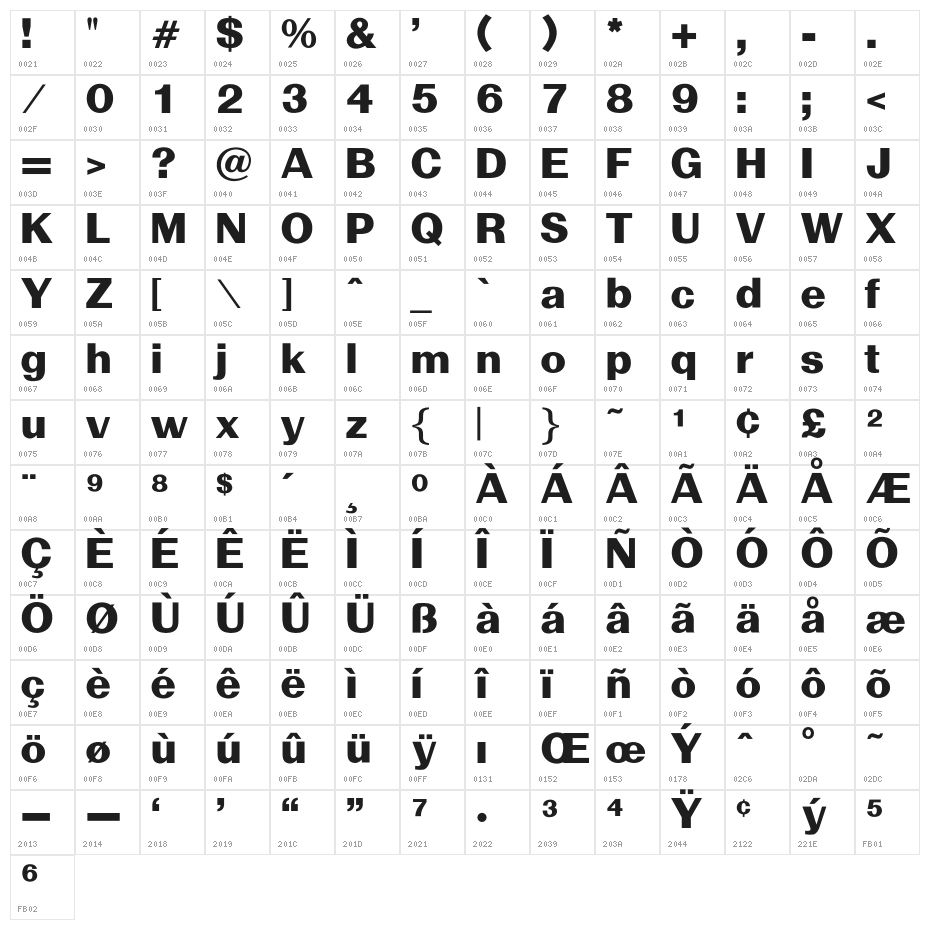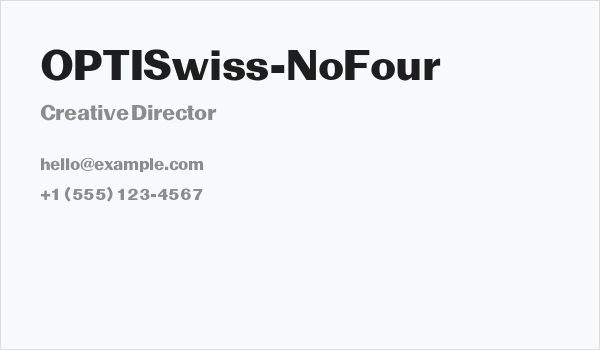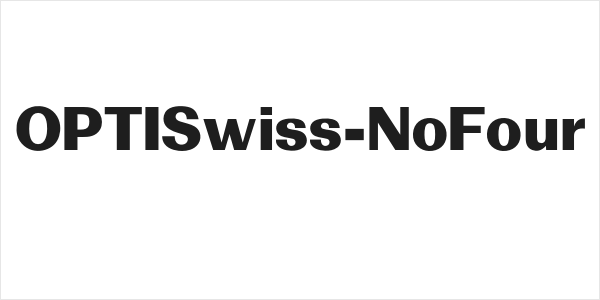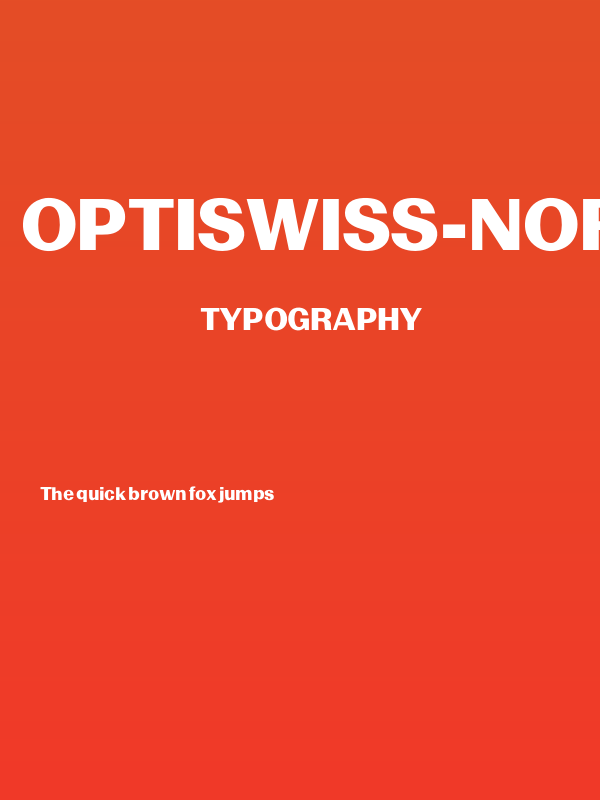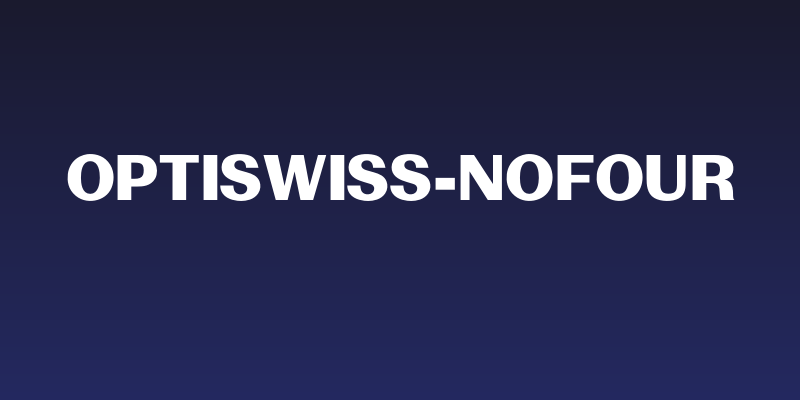
OPTISwiss-NoFour Font
OPTISwiss-NoFour Description
This font features a bold, sans-serif style with a strong and assertive presence. The characters are uniformly thick, providing a consistent and solid appearance across both uppercase and lowercase letters. The numerals and special characters maintain this boldness, ensuring readability and impact. The design is clean and modern, with straight lines and minimal curves, making it suitable for a variety of applications where clarity and emphasis are needed.
Proposed ProjectsIdeal for branding, headlines, posters, and any design requiring a strong visual impact.